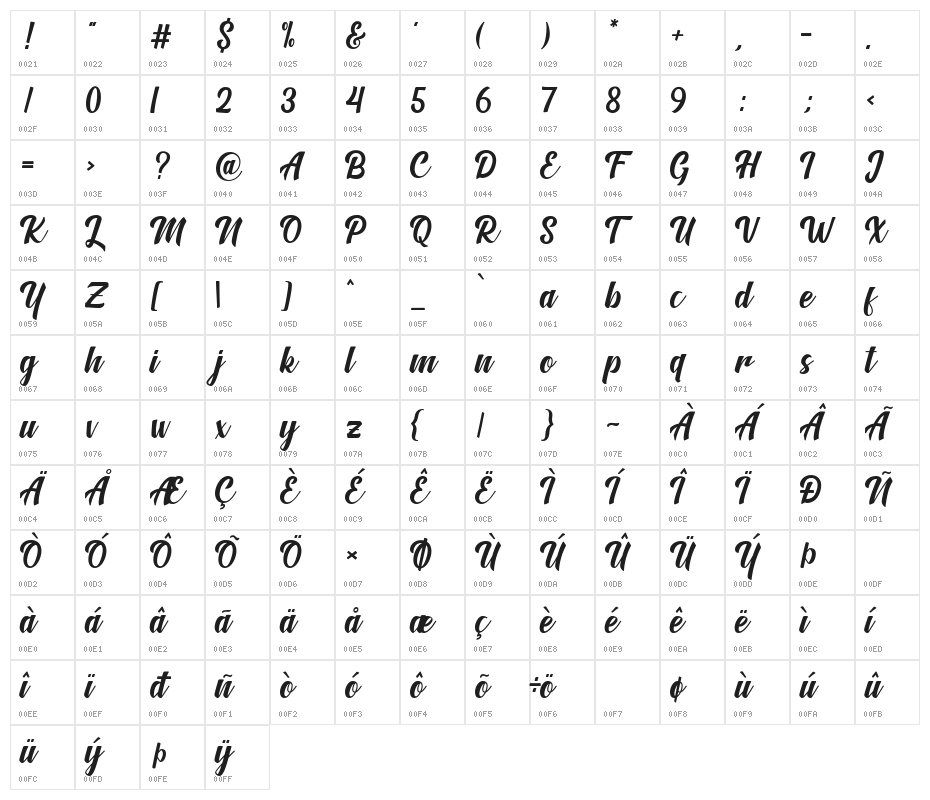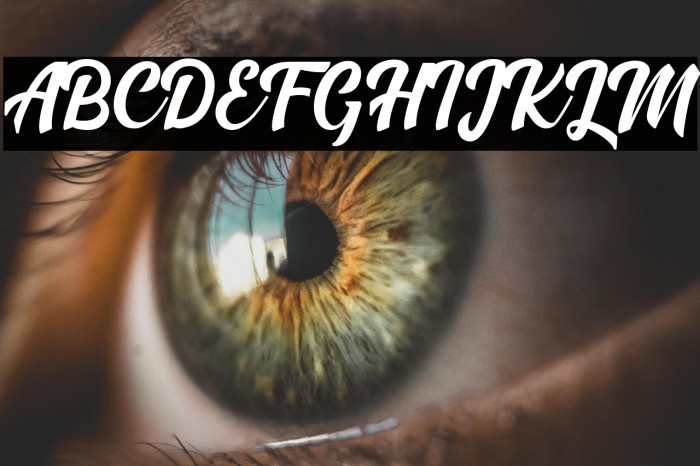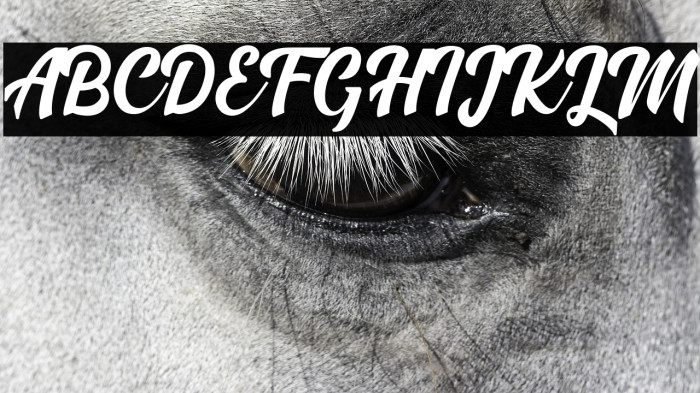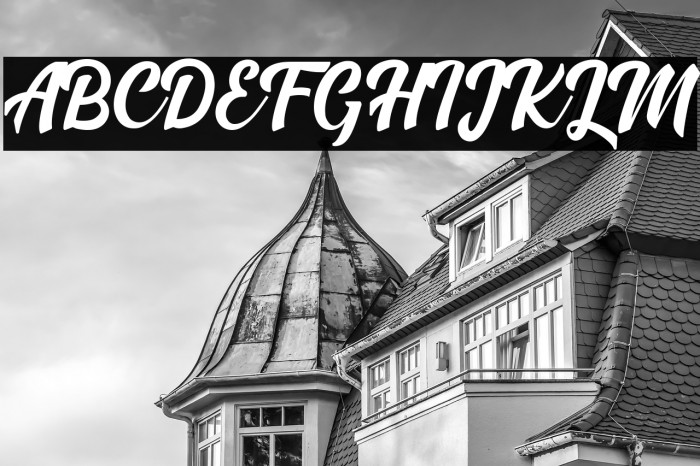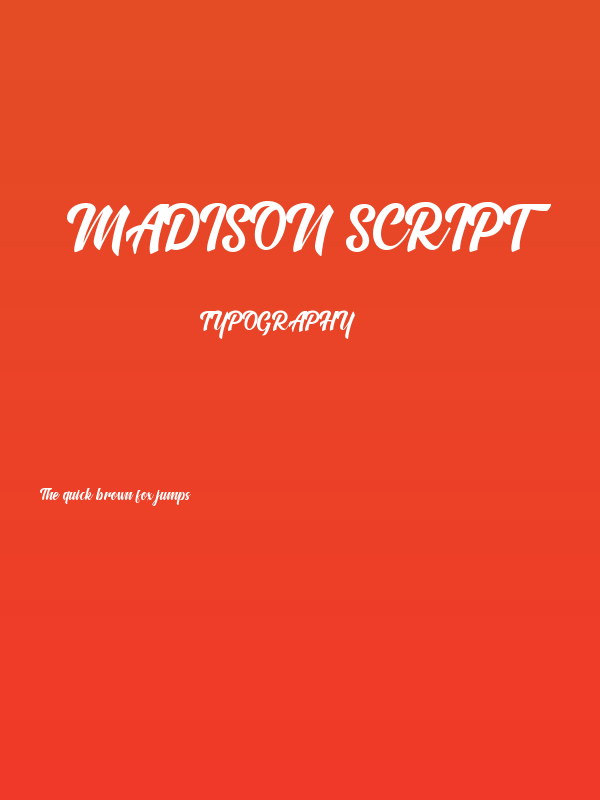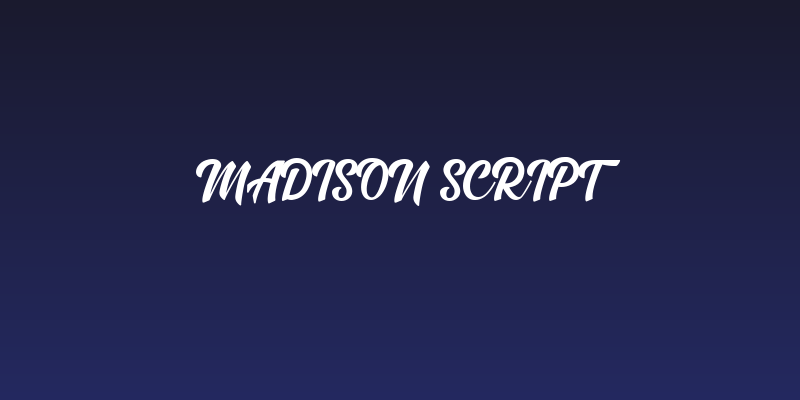
Madison Script Font
Madison Script Description
This font features a flowing, cursive style that exudes elegance and sophistication. The letters are interconnected, creating a seamless and fluid appearance. The uppercase characters are bold and prominent, while the lowercase letters maintain a consistent flow with subtle variations in stroke width. The numerals are clear and legible, complementing the overall script style. Special characters are designed with the same attention to detail, ensuring a cohesive look across all glyphs. This font is ideal for projects that require a touch of class and personality, such as invitations, branding, and decorative text.
Overall StyleElegant, Decorative
Use CaseLogos, Invitations, Decorative text
Proposed ProjectsIdeal for wedding invitations, branding, logos, and decorative text.